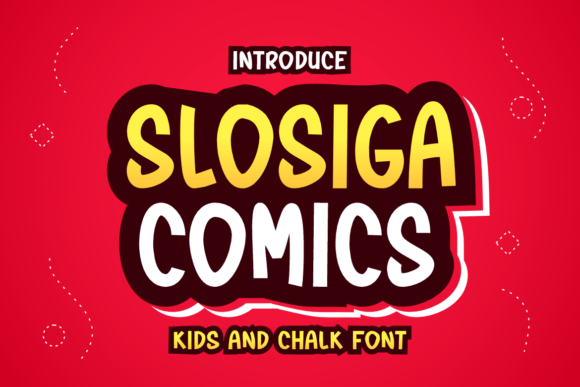
Slosiga Comics: A Quirky Display Font for Creative Makers
I remember the exact moment I needed a font that could stop a scroll on Etsy. I was designing a mockup for a batch of handmade soy candles, and the standard sans serif options felt too sterile for the cozy, whimsical vibe I wanted to convey. That is when Slosiga Comics caught my eye. As a Display typeface with a distinct personality, it immediately transformed my flat design into something that felt tactile and inviting. This isn't just another generic Fonts library addition; it is a tool designed to add character to your creative projects, ensuring your brand stands out in a crowded marketplace.
Slosiga Comics for Candle Labels and Boutique Packaging Design
When you are creating product labels or boutique packaging, Slosiga Comics offers a playful energy that resonates with customers looking for something unique. I tested this typeface on a series of die-cut stickers and kraft paper tags for a small shop listing, and the results were surprisingly effective. The quirky curves and bold strokes of the Display style work exceptionally well for short phrases, product names, and decorative headlines where you need to grab attention instantly. Unlike dense body text fonts, Slosiga Comics shines as a statement piece that adds immediate visual interest to your physical merchandise.
The font's personality makes it perfect for seasonal collections, such as holiday gift tags or summer sale banners. When paired with a clean sans serif font for the ingredient lists or care instructions, the contrast creates a professional yet approachable hierarchy. However, I found that it is best reserved for short copy rather than long paragraphs. If you are printing tiny text on a small bottle cap, readability might become an issue, so reserve the bulkier letterforms for the main title and use a simpler companion font for the details. This strategic pairing ensures your packaging looks high-quality without sacrificing legibility.
Slosiga Comics for Wedding Invitations and Digital Printables
For stationery designers and printable creators, Slosiga Comics brings a fun, modern twist to traditional invitation suites. I recently used this Display font to draft a wedding welcome board mockup, and the handwritten feel added a personal touch that guests loved. It is particularly effective for digital downloads like planner pages, journal covers, or social media graphics where you want to inject a sense of joy and creativity. The unique shapes of the letters allow it to stand out against busy backgrounds, making it ideal for cover art or promotional materials.
In the realm of digital products, the versatility of Slosiga Comics allows you to create cohesive branding across various formats. Whether you are designing a set of printable wall art or a custom SVG file for a Cricut user, the font maintains its charm at different sizes. It works beautifully as a primary header in a creative font collection, setting the tone for the entire project. Just be mindful of the commercial license terms before selling templates that include this font. Ensure you have the rights to distribute the file or instruct your clients on how to purchase their own copy if required by the licensing agreement.
Slosiga Comics for Merchandise Mockups and Social Media Graphics
Making your brand identity pop on social media or merchandise often requires a font that can handle bold statements. Slosiga Comics excels in this area, turning simple t-shirt designs and tote bag prints into eye-catching pieces of art. I experimented with applying the font to a mug mockup for a coffee shop client, and the quirky nature of the Fonts style gave the product a distinct, artisanal feel. The thick lines and playful terminals make it highly visible even from a distance, which is crucial for window signs or large format posters.
While the font is fantastic for headlines and logos, it may not be suitable for technical product instructions or dense legal disclaimers. For those elements, a more neutral serif font or a straightforward handwritten font would provide better clarity. By combining Slosiga Comics with a more utilitarian typeface, you can balance the aesthetic appeal with necessary information. This approach helps maintain a consistent brand voice while ensuring your customers can easily read important details about your products. Always check the included styles and alternates to see if there are specific swashes or ligatures that enhance your specific design needs.
Slosiga Comics for Seasonal Crafts and Custom Signage Projects
Seasonal crafting often demands a font that can adapt to different themes without losing its core identity. Slosiga Comics proved to be a versatile asset when I was preparing a series of farmhouse-style signs for a fall market. The font's inherent warmth made it easy to integrate into rustic decor themes while still maintaining a modern edge. It is a great choice for DIY enthusiasts using cutting machines like Silhouette or Cricut to create vinyl decals for laptops, water bottles, or car windows.
The key to getting the most out of this Display typeface is understanding its limitations and strengths. It is designed to be enjoyed as a focal point, adding a burst of personality to any project. Whether you are designing a birthday party invitation or a custom logo for a craft business, Slosiga Comics provides the visual hook needed to engage your audience. By testing it on real materials and adjusting the kerning for specific layouts, you can ensure that your final output looks polished and professional. Ultimately, adding this font to your toolkit allows you to create designs that feel handcrafted and full of life, exactly what modern buyers are searching for.